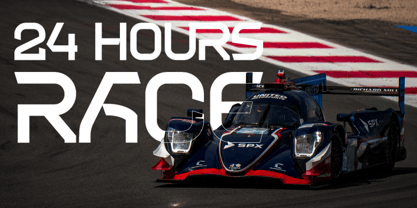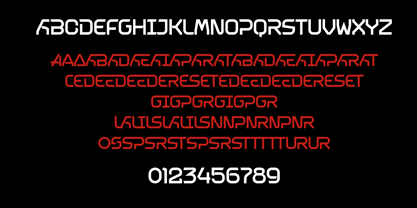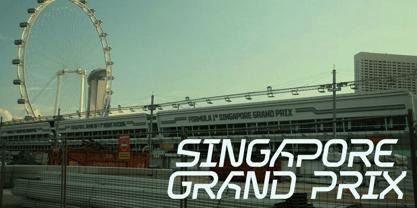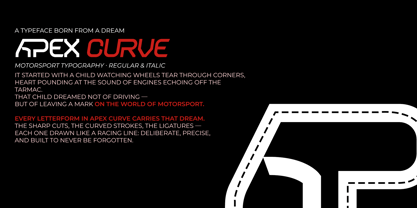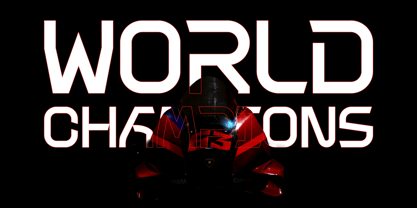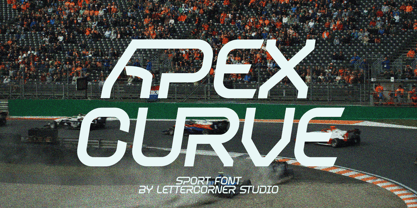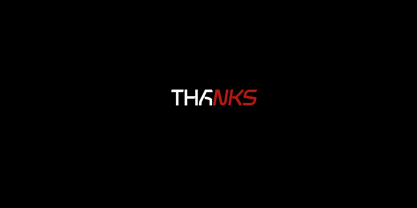
Apex Curve
by Mevstory Studio
The Apex Curve Font Family was designed by Muhammad Afif Ersya and published by Mevstory Studio. Apex Curve contains 2 styles and family package options. More about this family
APEX CURVE Motorsport Typeface · Regular & Italic About the Font Apex Curve is a motorsport-inspired display typeface born from a lifelong passion for racing. Designed with the precision of a perfectly executed racing line, every letterform carries the energy of engines, the tension of tight corners, and the ambition of a young dreamer who wanted to contribute something meaningful to the world of motorsport. Design Philosophy The name says it all. In motorsport, the apex is the most critical point of a corner — where commitment meets control, where champions are made and races are won. Apex Curve translates that philosophy into type: sharp angular cuts that slice through negative space like a front wing through air, bold horizontal strokes echoing the tarmac markings of a grand prix circuit, and flowing curves that carry momentum from one letterform to the next without losing speed. Features Apex Curve comes equipped with an extensive OpenType feature set designed for maximum versatility across branding, editorial, and display applications: 96 Ligatures — carefully crafted two and three-character combinations including the signature EED, EeD, eED, and eed ligatures, plus AR, ST, GP, NR, TT and many more Stylistic Alternates — alternate forms for C, O, S and their lowercase counterparts for additional design flexibility Kerning — refined spacing across all character pairs for tight, professional typesetting Full Uppercase & Lowercase — with a consistent design system that treats every weight of casing as a meaningful typographic decision Ideal Use Cases Apex Curve was built for projects that demand presence and attitude: Racing team identities and livery graphics Motorsport event branding and posters Helmet and apparel design Sports editorial and magazine headlines Gaming and esports branding Automotive brand campaigns Streetwear and performance lifestyle labels A Note from the Designer This typeface is more than a commercial product. It is the result of years of watching racing, studying circuits, and dreaming of contributing to a world I have loved since childhood. Every cut, every curve, every ligature in Apex Curve is drawn with intention — for the designers, the teams, the brands, and the fans who live and breathe motorsport. This is my corner. And I took it flat out.